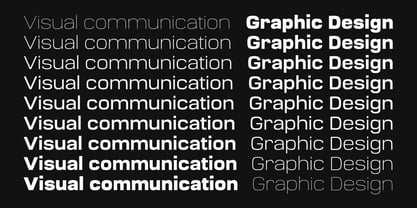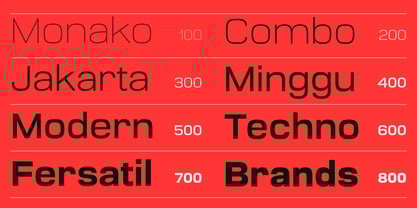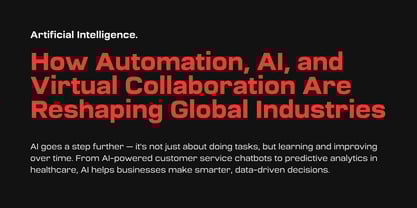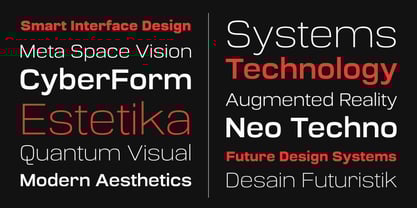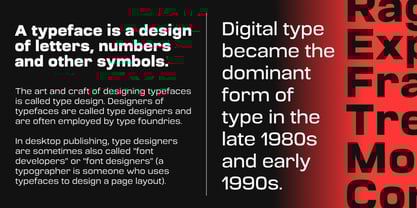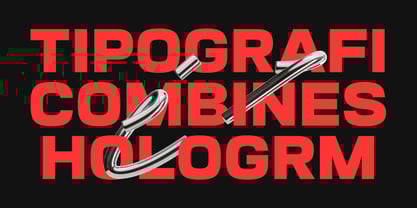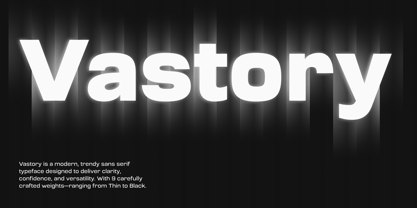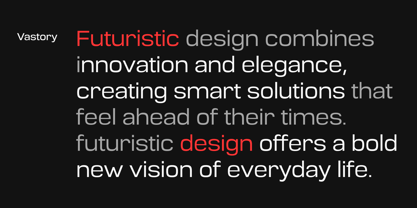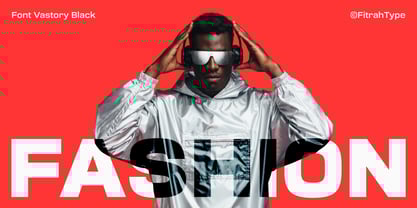
Vastory
by Fitrah Type
The Vastory Font Family was designed by Moch Fitrah Hidayat and published by Fitrah Type. Vastory contains 9 styles and family package options. More about this family
Vastory is a square-based sans serif typeface with rounded edges and confident, wide proportions. Designed to bridge clarity and character, it offers a clean yet approachable look—perfect for brands and creatives shaping the future.
With 9 distinct weights, from whisper-thin to ultra-bold, Vastory adapts seamlessly across a variety of uses—be it minimalist editorial, futuristic UI, or bold headline branding. Its slightly wide stance gives it stability and presence, while the soft curves keep it friendly and human.
Key Features:
• 9 weights: Thin, Extra Light, Light, Regular, Medium, Semi Bold, Bold, Extra Bold, Black
• Balanced clarity with a soft geometric edge
• Ideal for branding, fashion, tech, UI/UX, packaging, and editorial design
Let your designs step into the Vastory—a typeface built for tomorrow's ideas.
Designers: Moch Fitrah Hidayat
Foundry: Fitrah Type